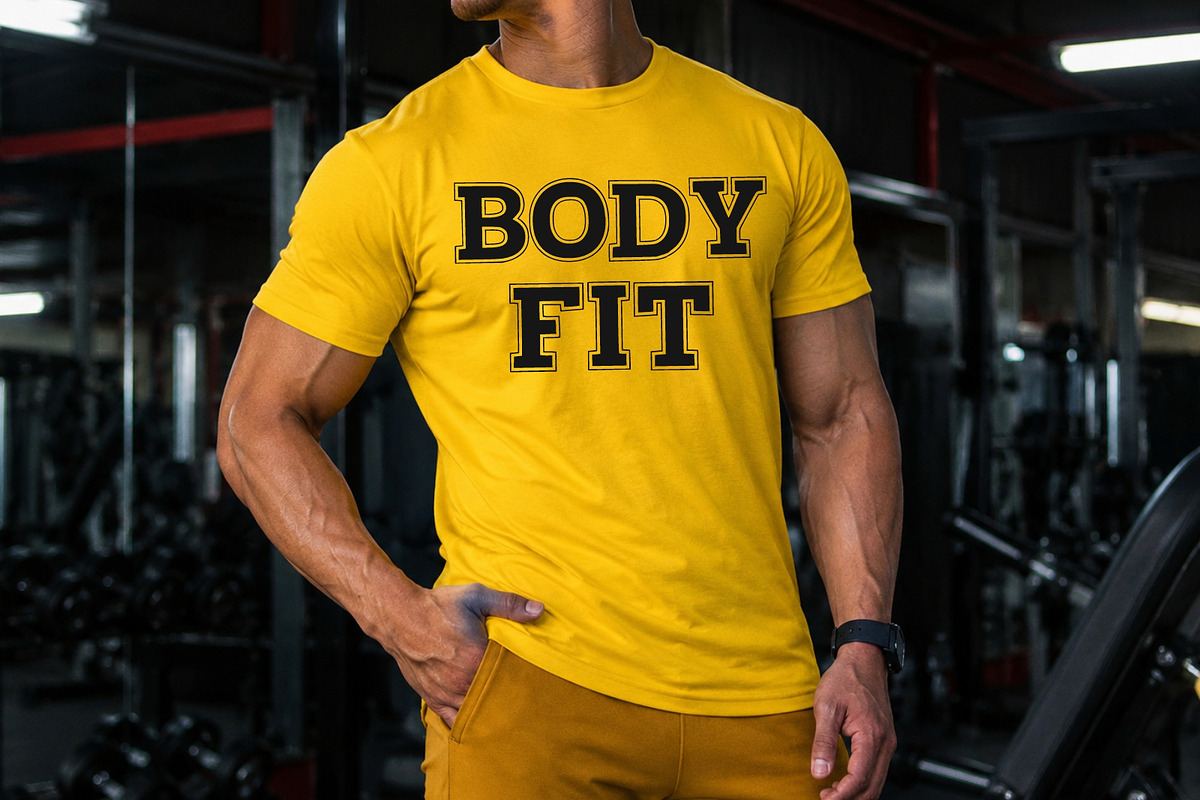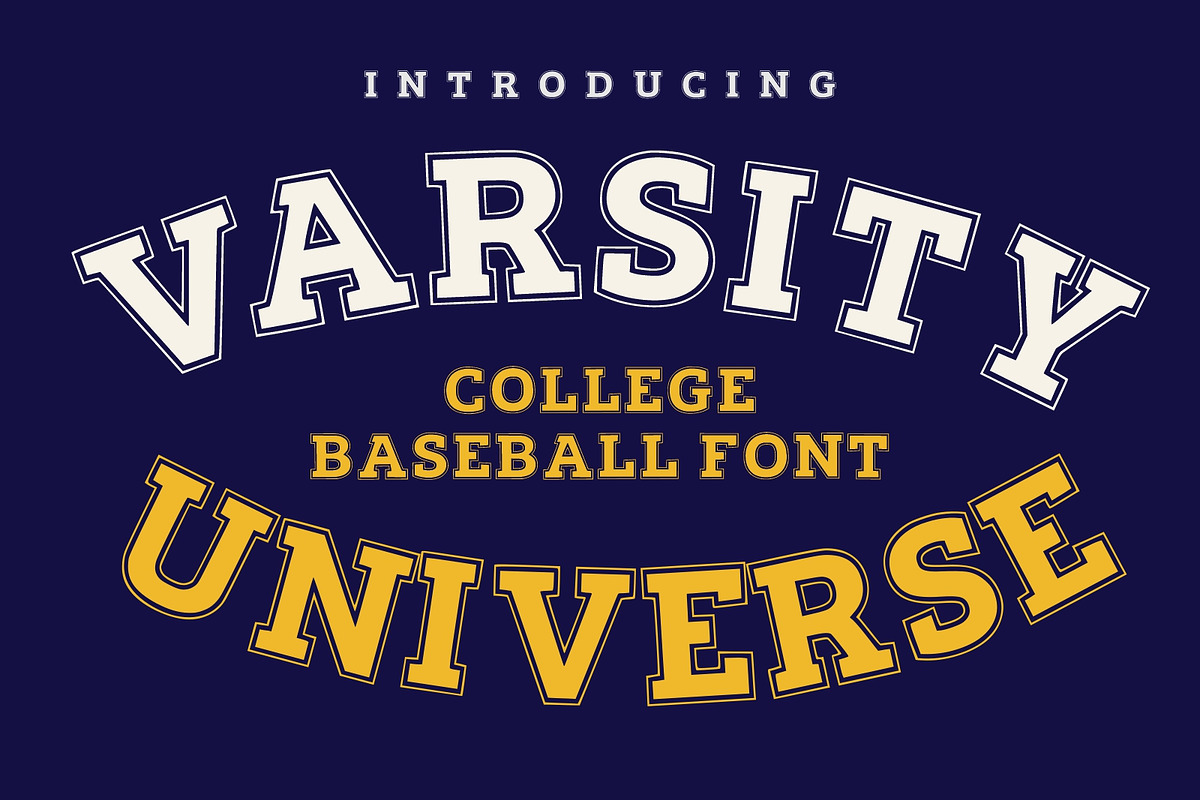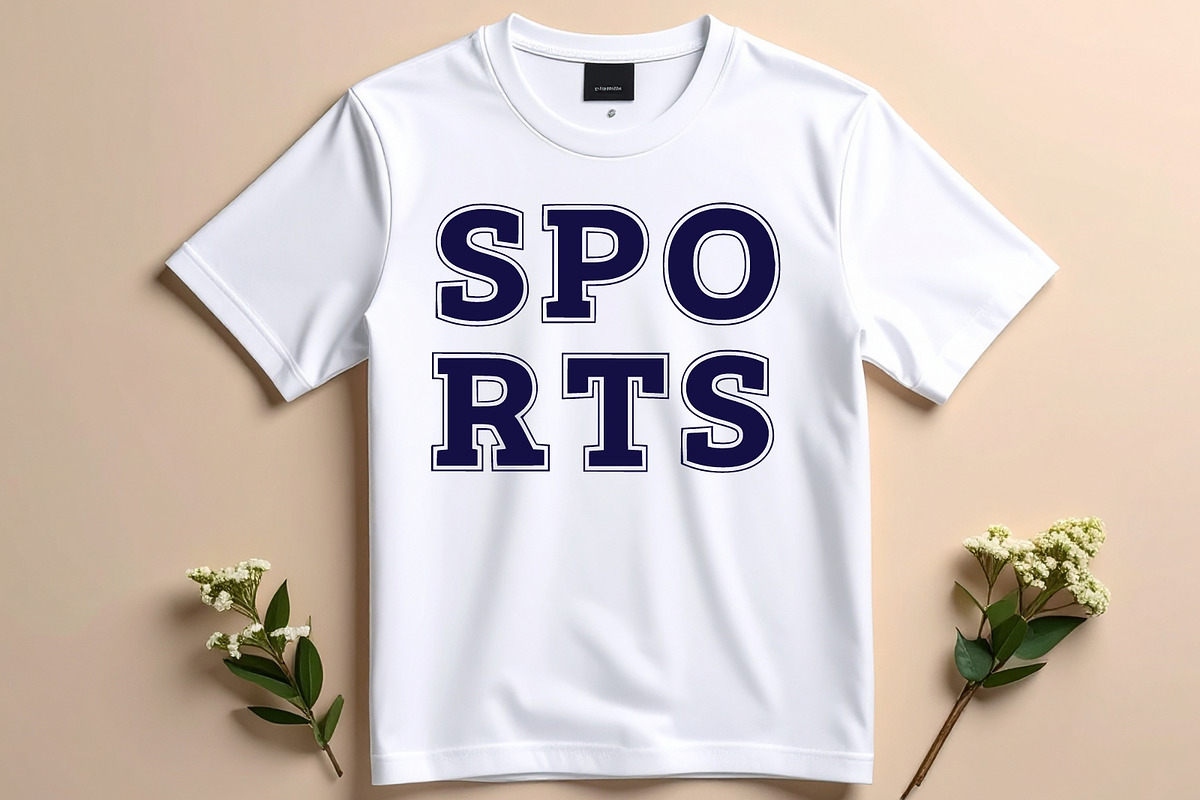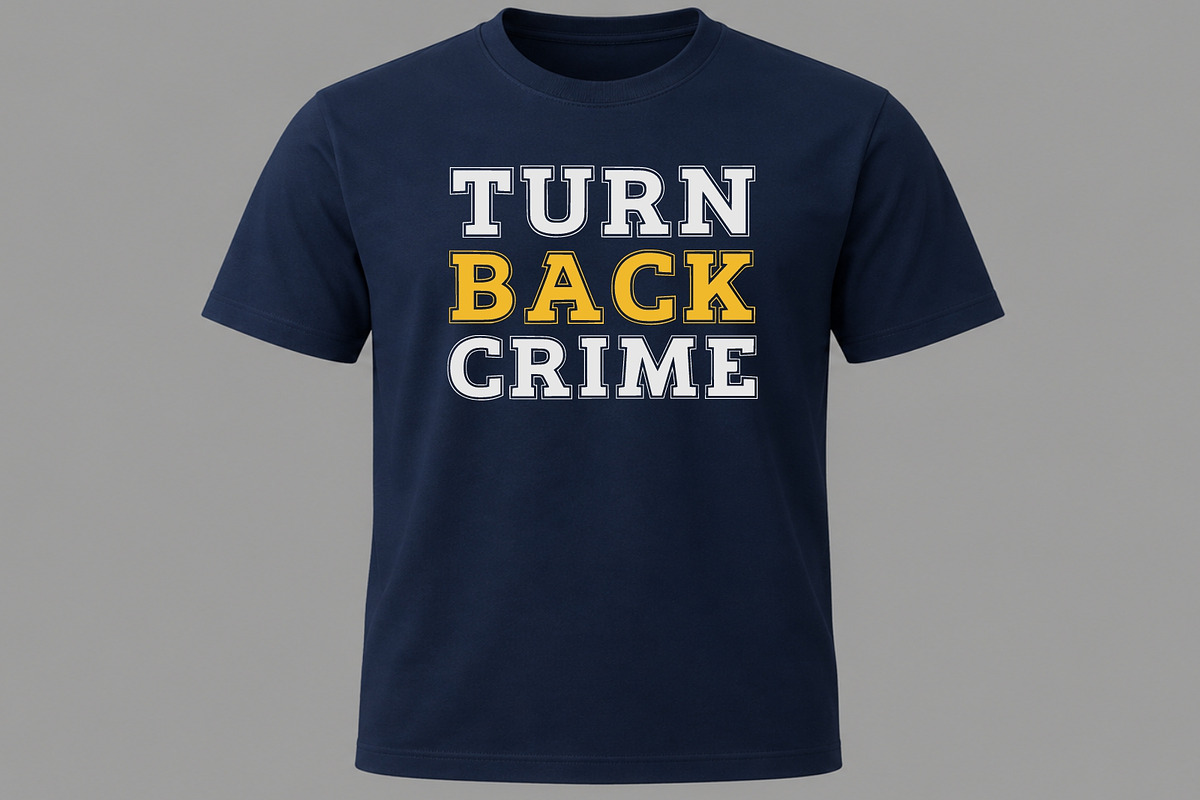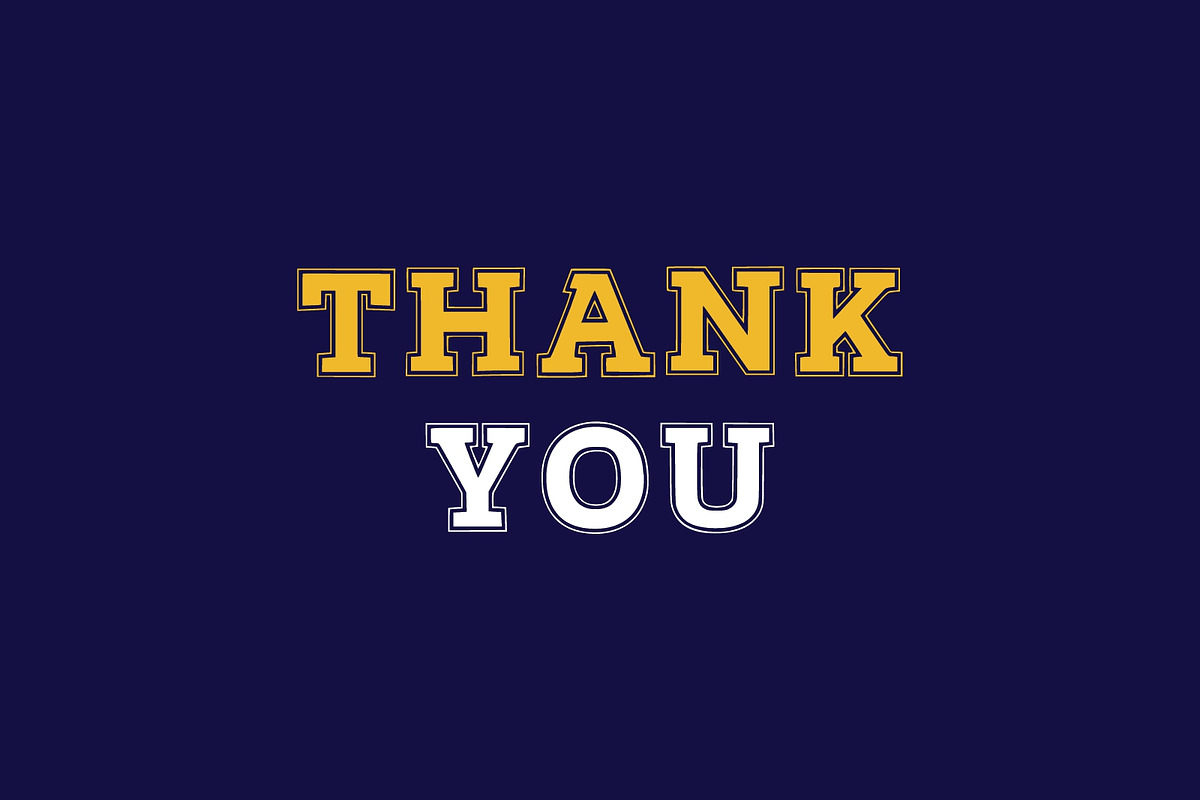
Varsity Universe Font
Varsity Universe is a bold and classic college baseball font inspired by vintage varsity lettering and retro sports typography. This font features strong slab serif characters with curved collegiate styling, making it perfect for baseball logos, university branding, sports apparel, team merchandise, posters, t-shirt designs, retro headlines, and athletic-themed projects. Its authentic vintage sports look brings a timeless American college atmosphere to any creative design.